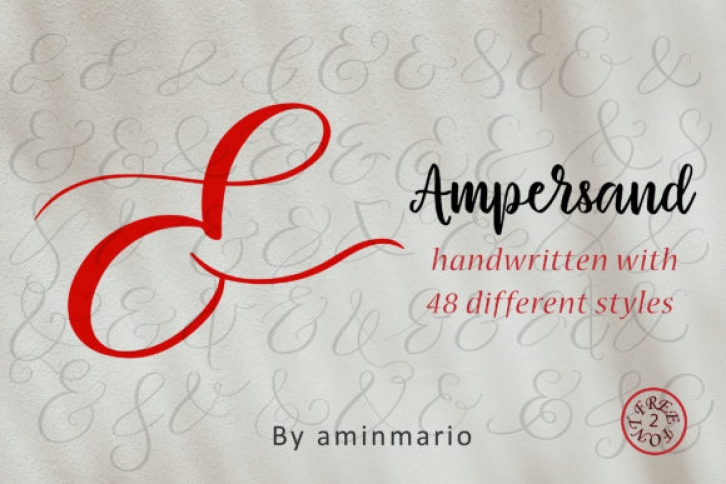
This is AMPERSAND natural handwriting with 48 different styles.
This is not for writing words or sentences, but for monograms. Bonus 2 Font that contains the uppercase and lowercase to support it.